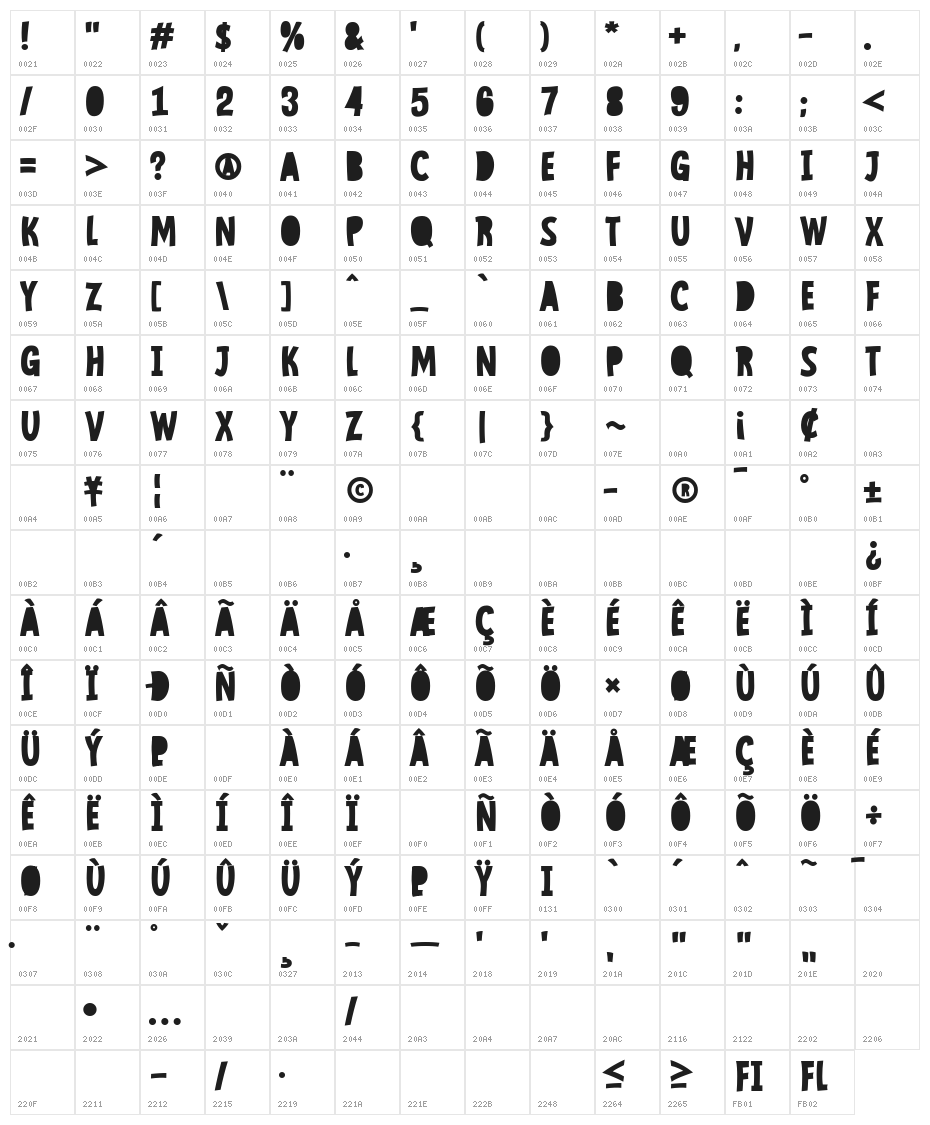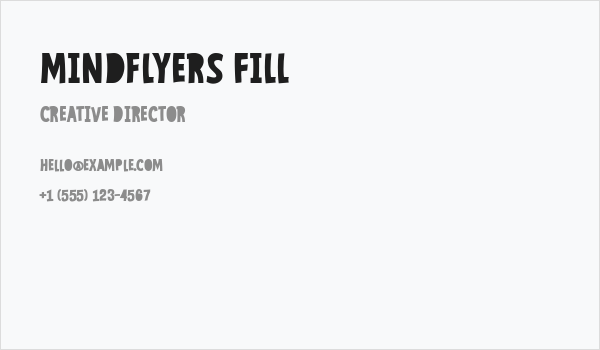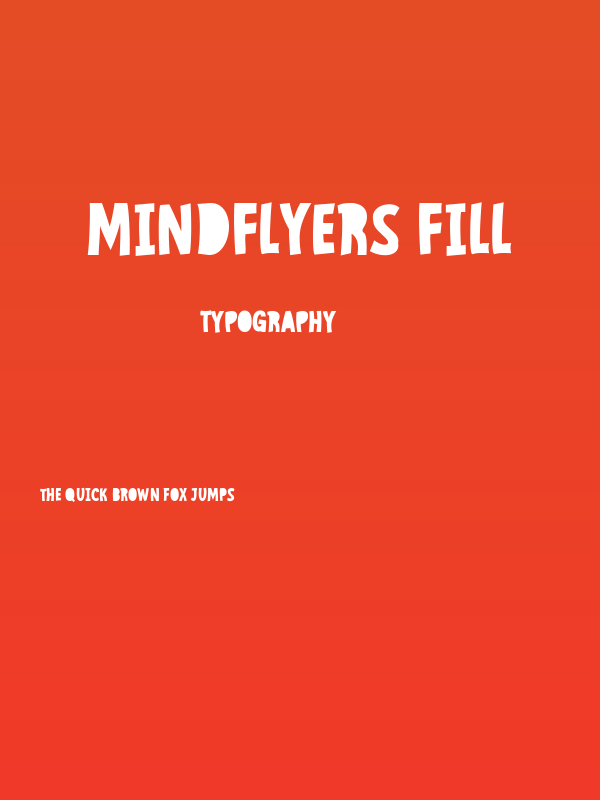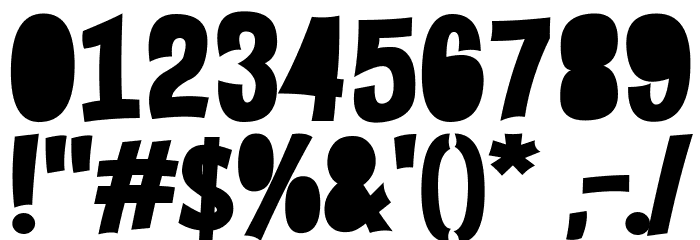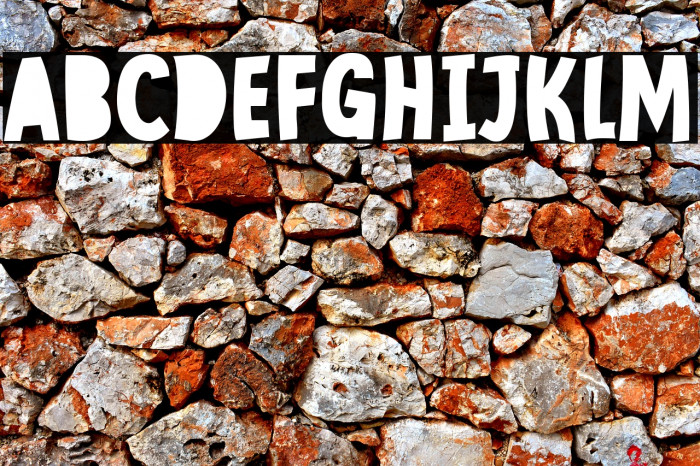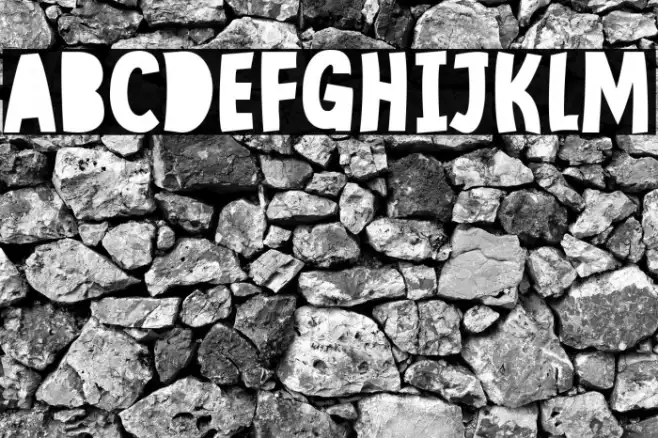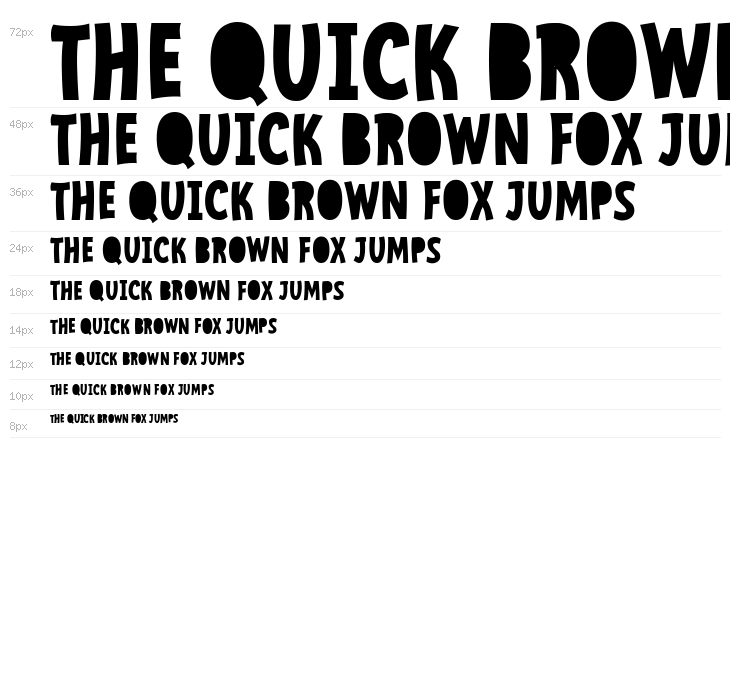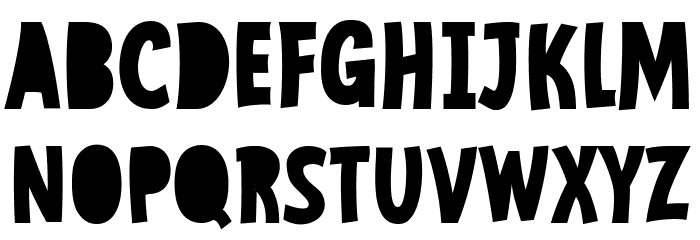
Mindflyers Fill Font
Mindflyers Fill Description
This font features bold, playful characters with a slightly irregular, hand-drawn appearance. The letters are thick and rounded, giving them a friendly and approachable feel. The uppercase and lowercase letters maintain a consistent style, with exaggerated curves and varying stroke widths that add a dynamic quality. Numbers and special characters are equally bold and expressive, making them stand out. The overall design is whimsical and energetic, suitable for creative and informal applications.
| Overall Style | Playful, Whimsical, Creative |
| Proposed Projects | Ideal for children's books, playful branding, posters, and creative projects that require a fun and energetic typeface. |